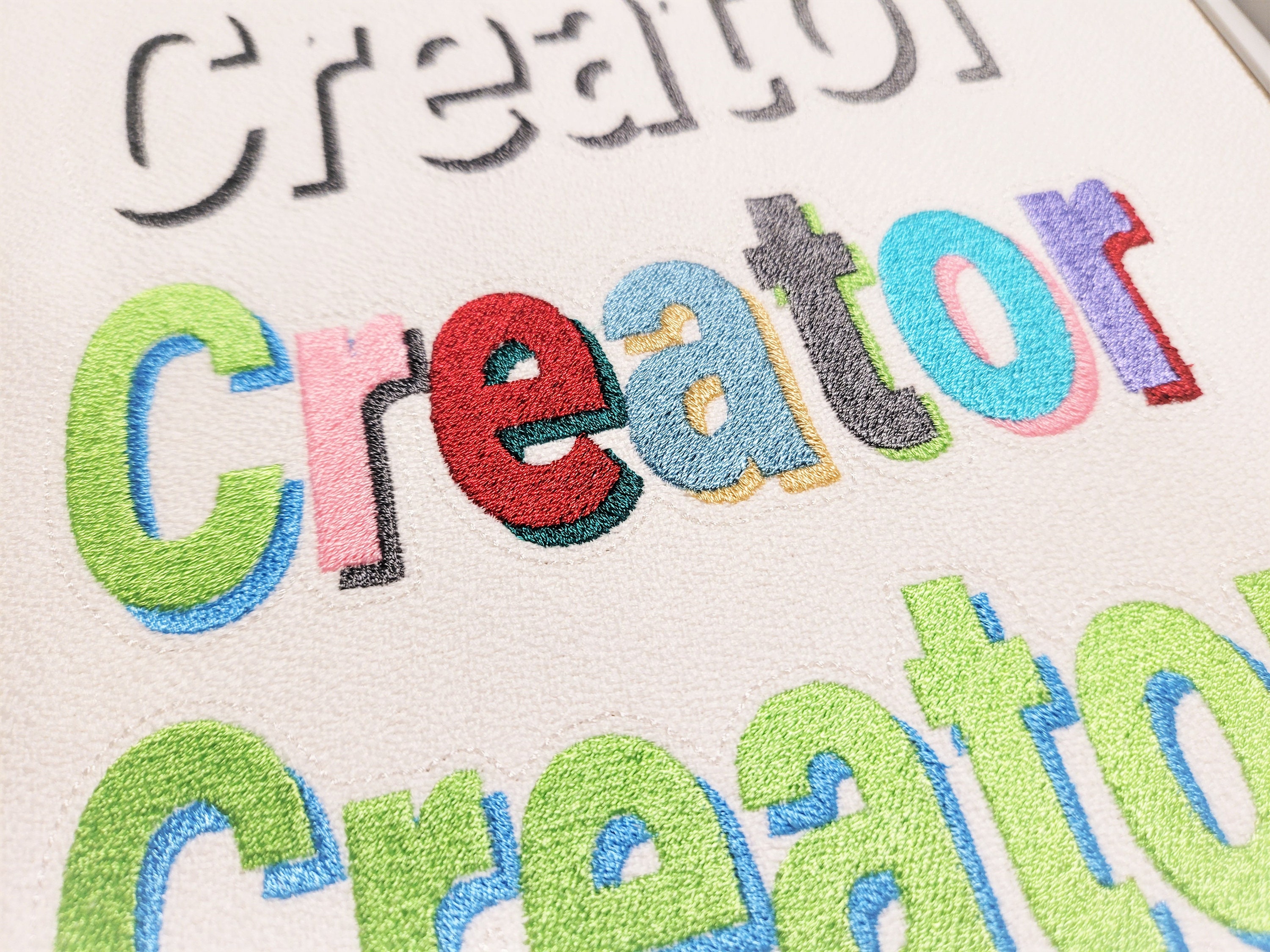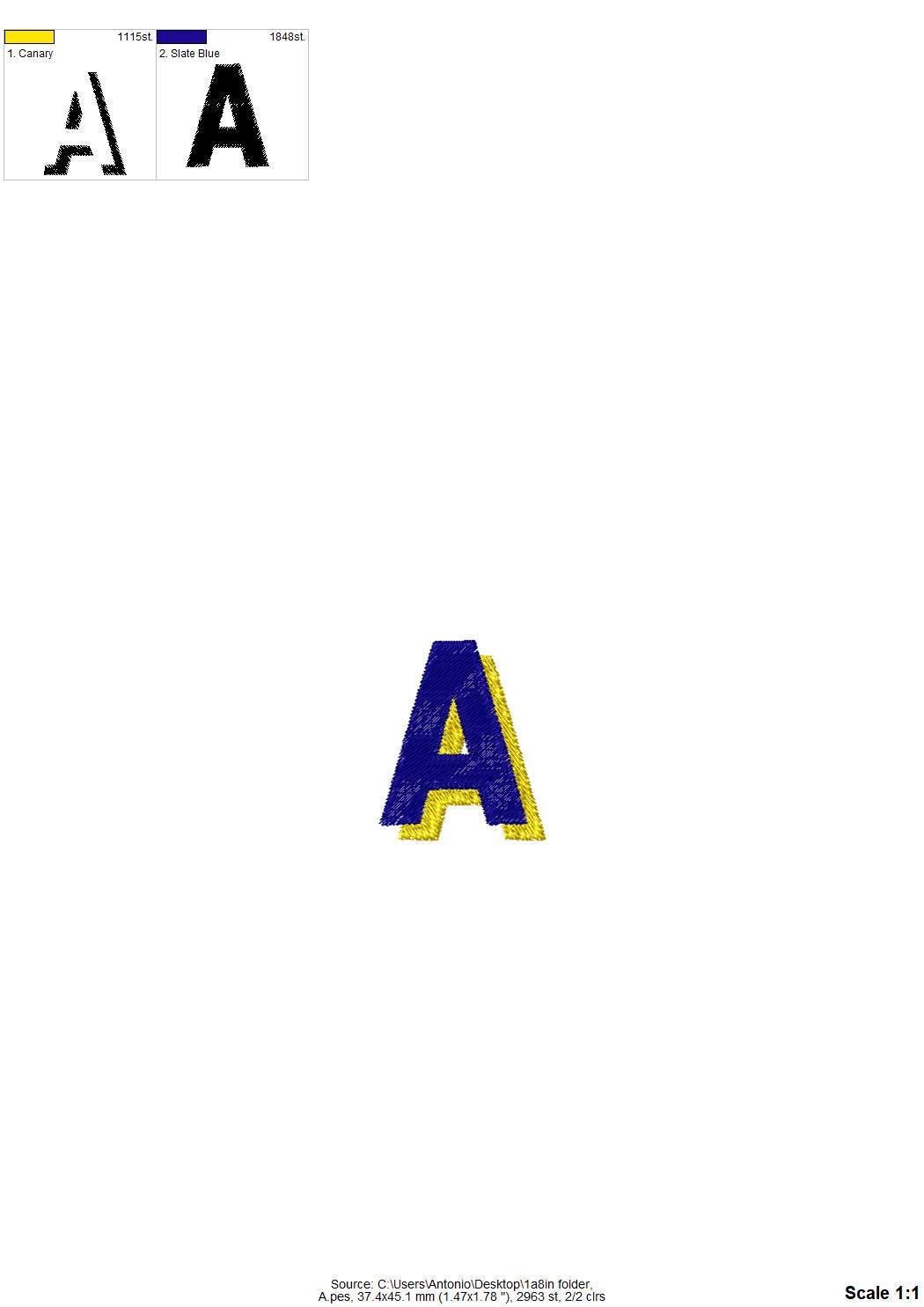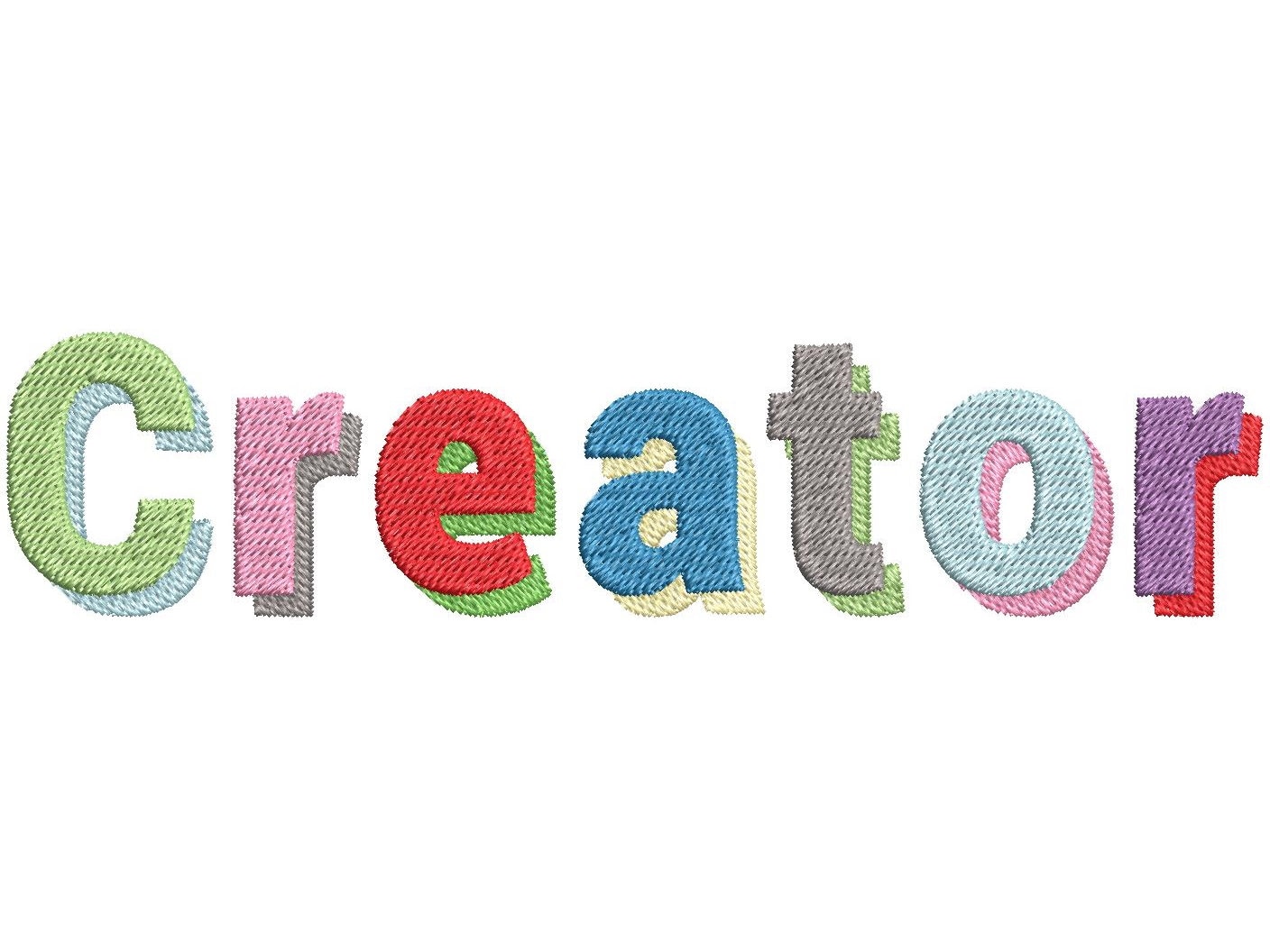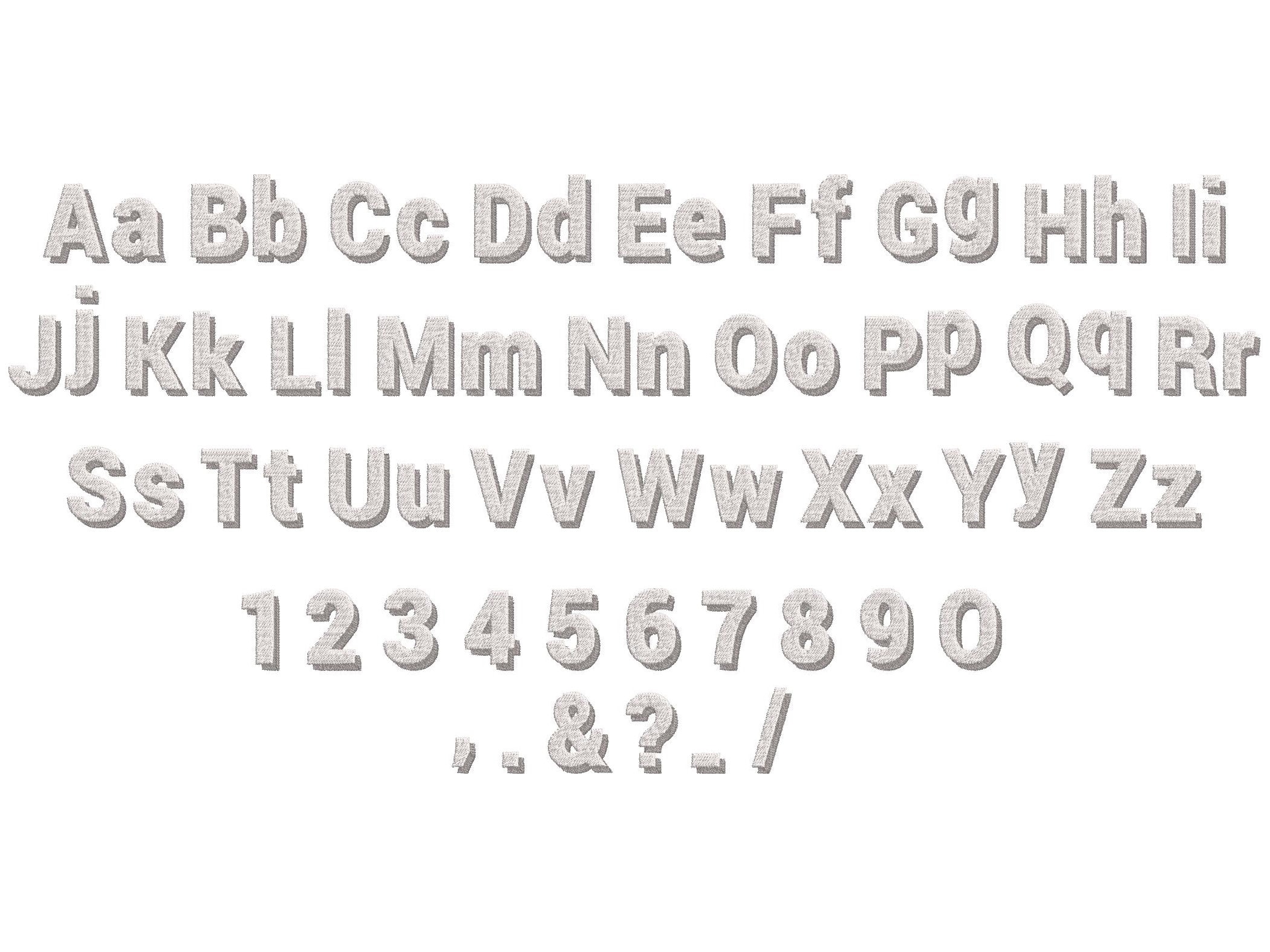
Block type Shade Font fill stitch machine embroidery designs Creative playful kids sport letters numbers punctuation marks with shadow, BX included
Whole alphabet A-Z uppercase and lowercase letters, numbers 0-9, and punctuation.